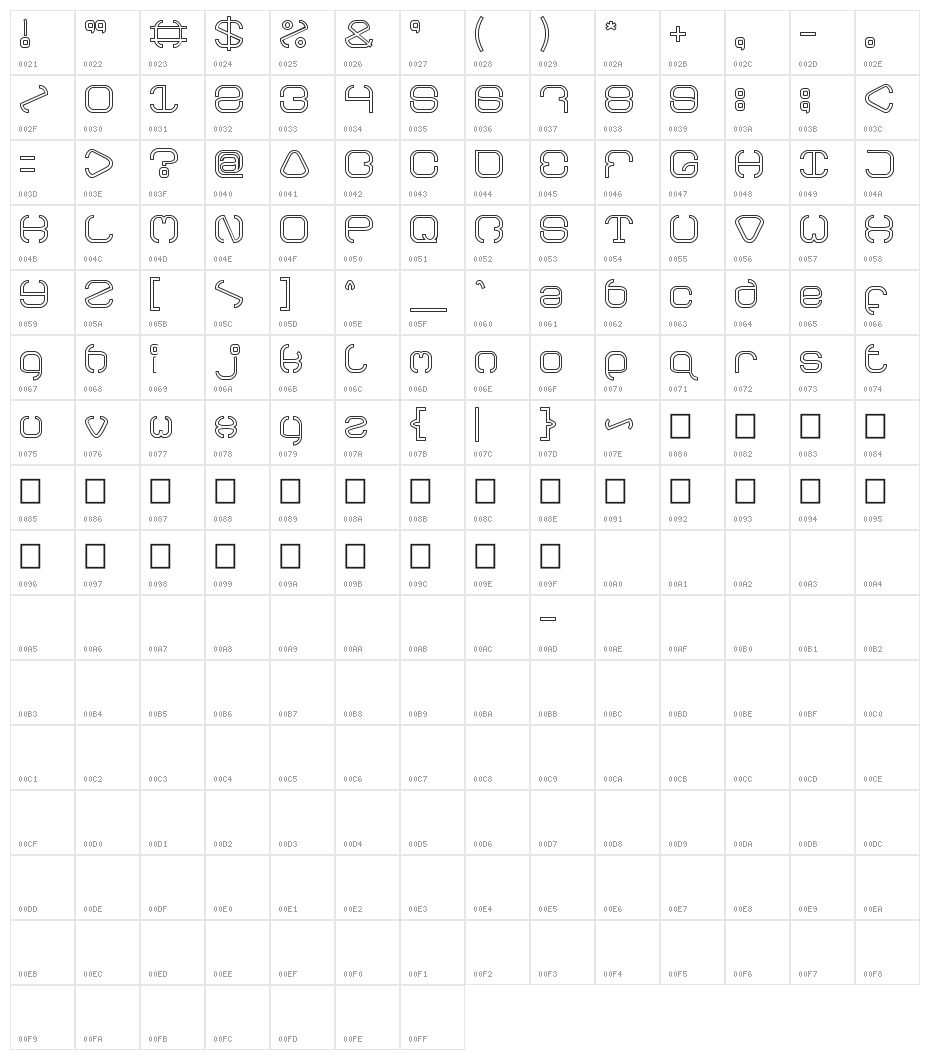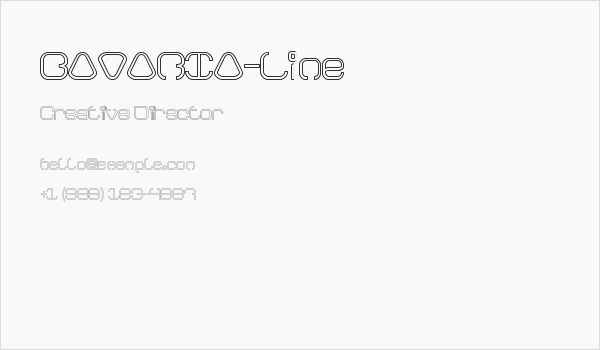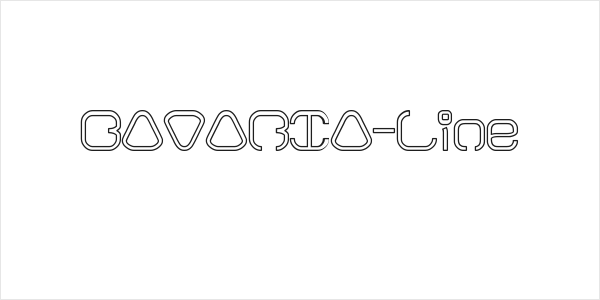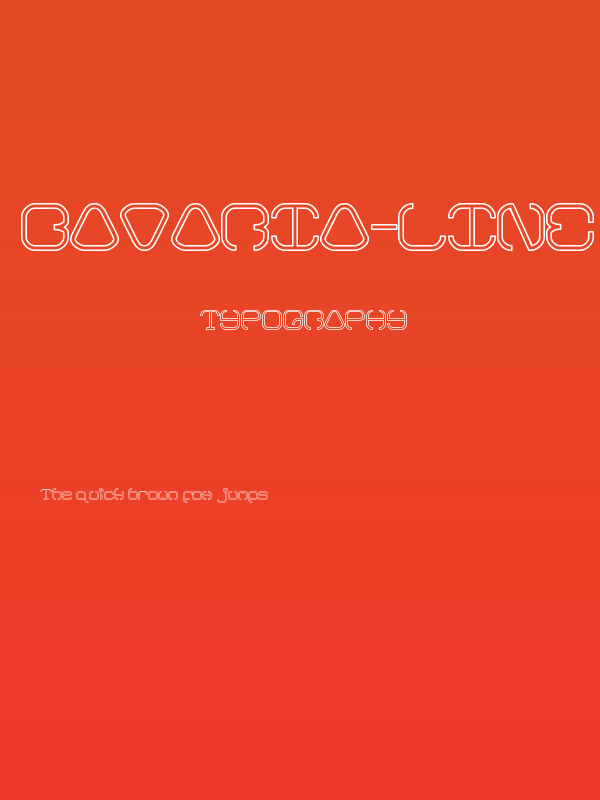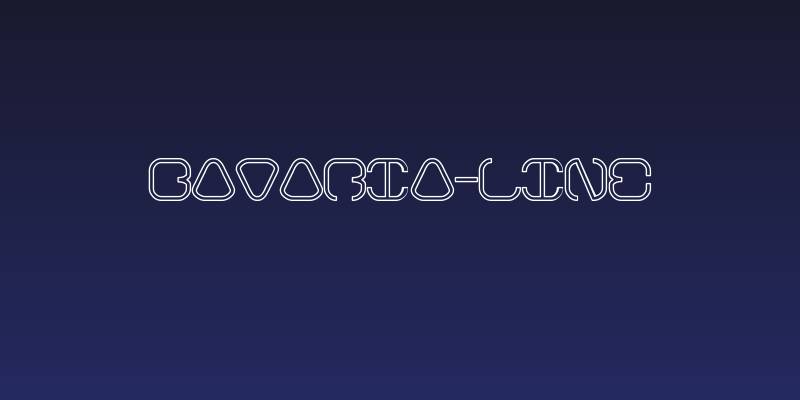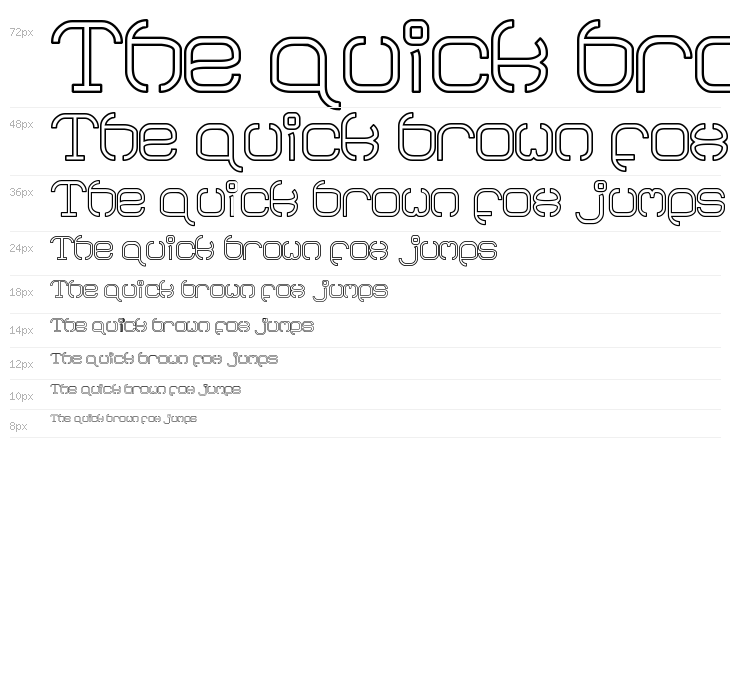
BAVARIA-Line Font
✎ Outline
BAVARIA-Line Description
This font features a unique, futuristic design with a geometric and open structure. The characters are outlined, giving them a hollow appearance, which adds to the modern and sleek aesthetic. The lines are smooth and consistent, creating a harmonious flow throughout the alphabet. The uppercase and lowercase letters maintain a uniform style, with rounded edges and a consistent stroke width. Numbers and special characters follow the same design principles, ensuring a cohesive look. This font's distinct style makes it stand out, ideal for projects that require a modern and innovative touch.
| Use Case | Logos, Headlines, Posters |
| Proposed Projects | Ideal for tech-related branding, futuristic posters, modern logos, and digital media projects. |